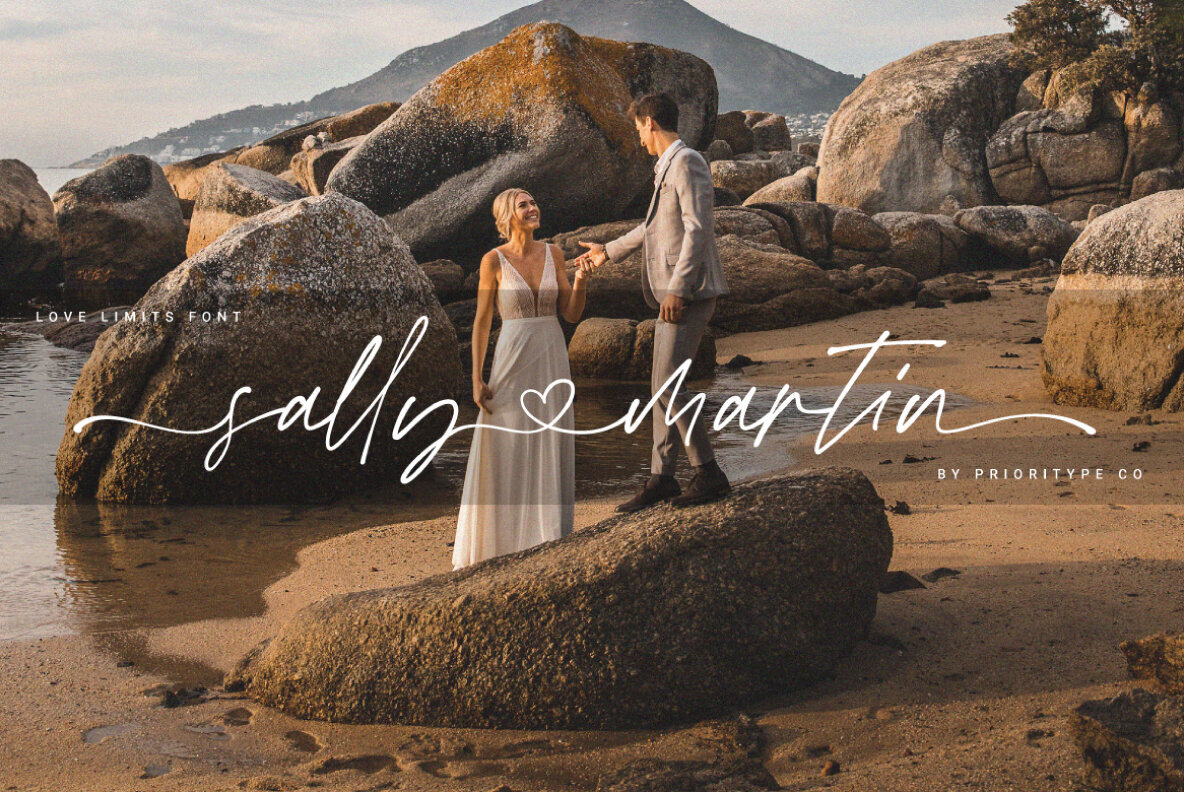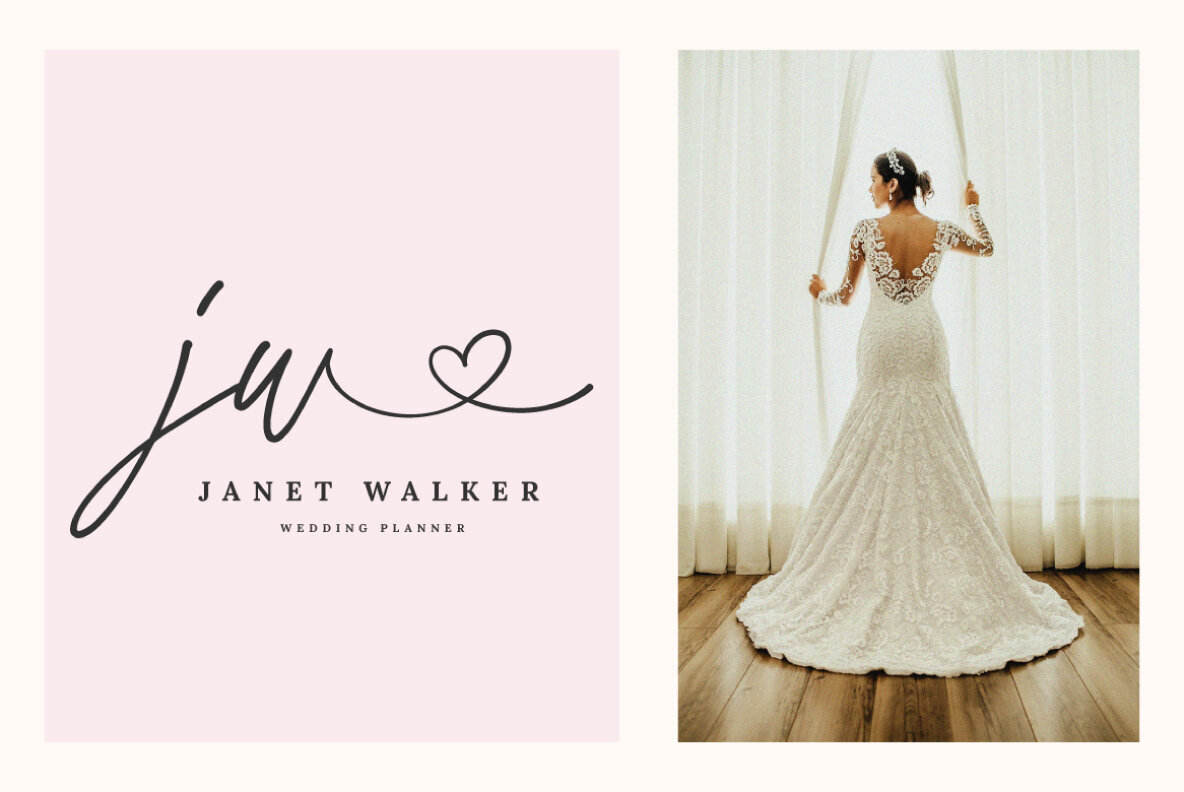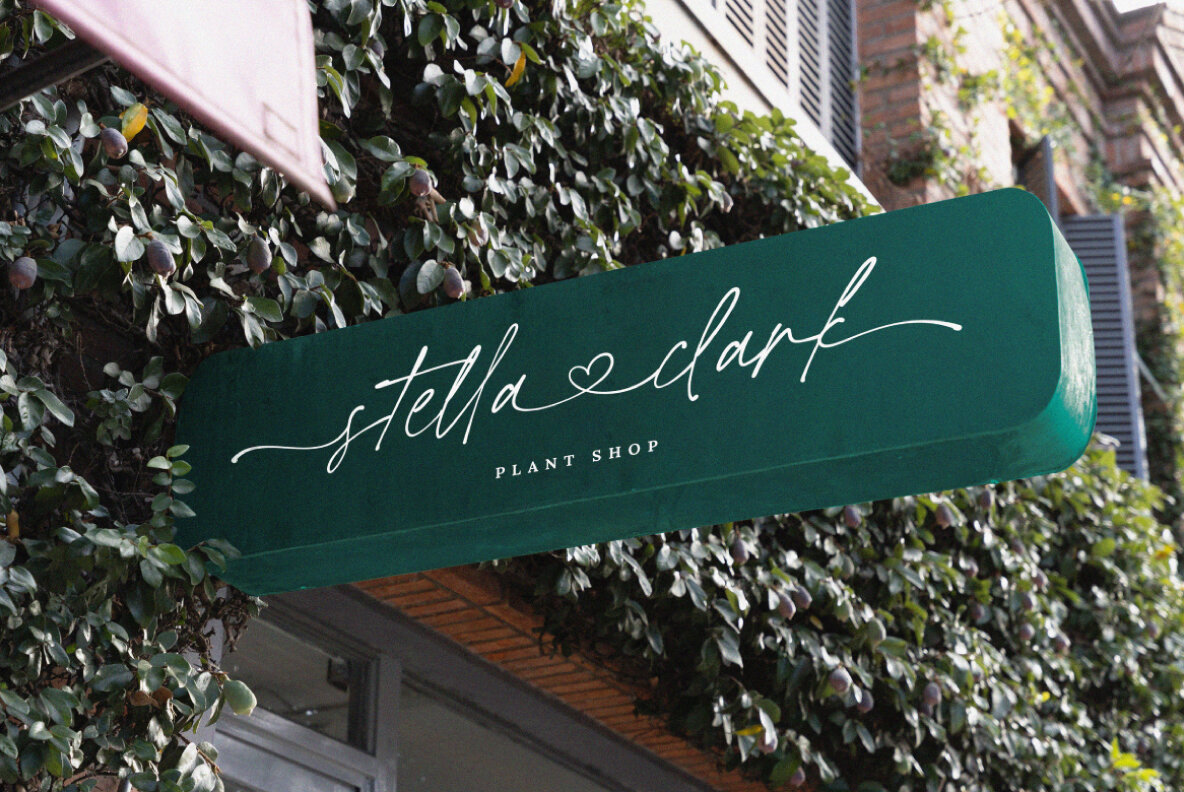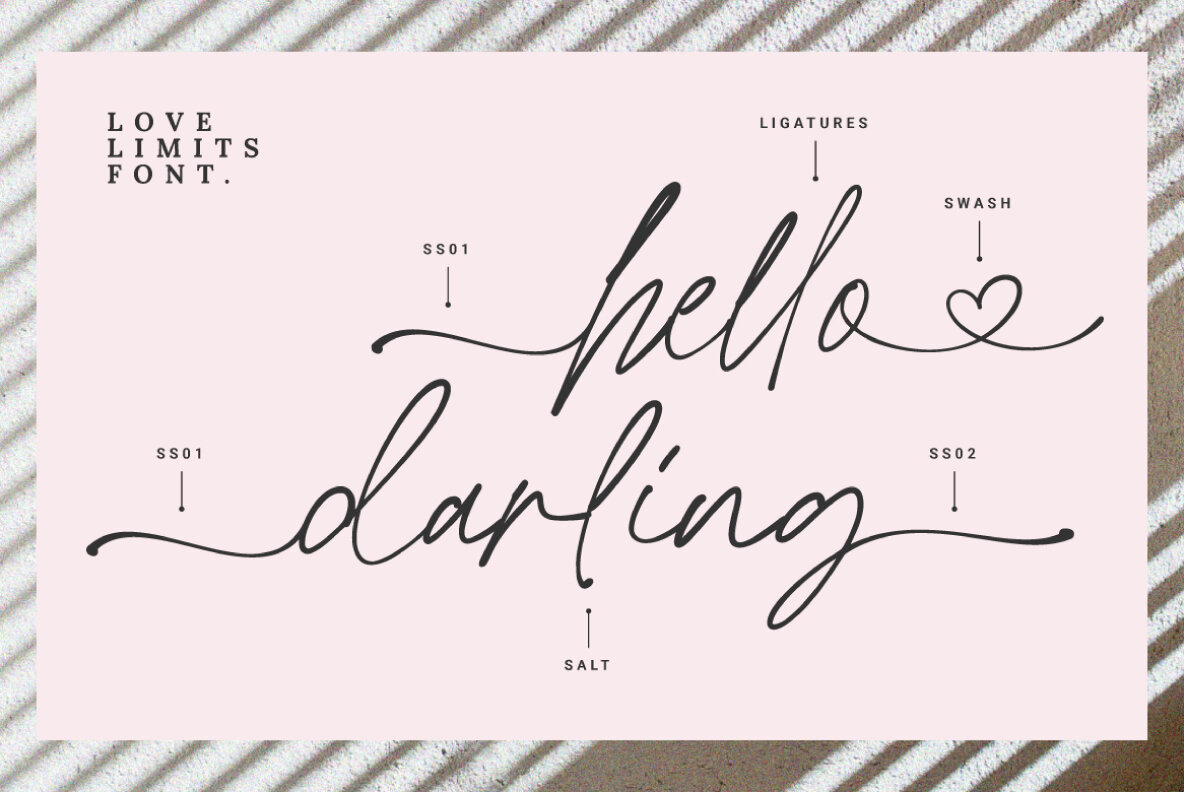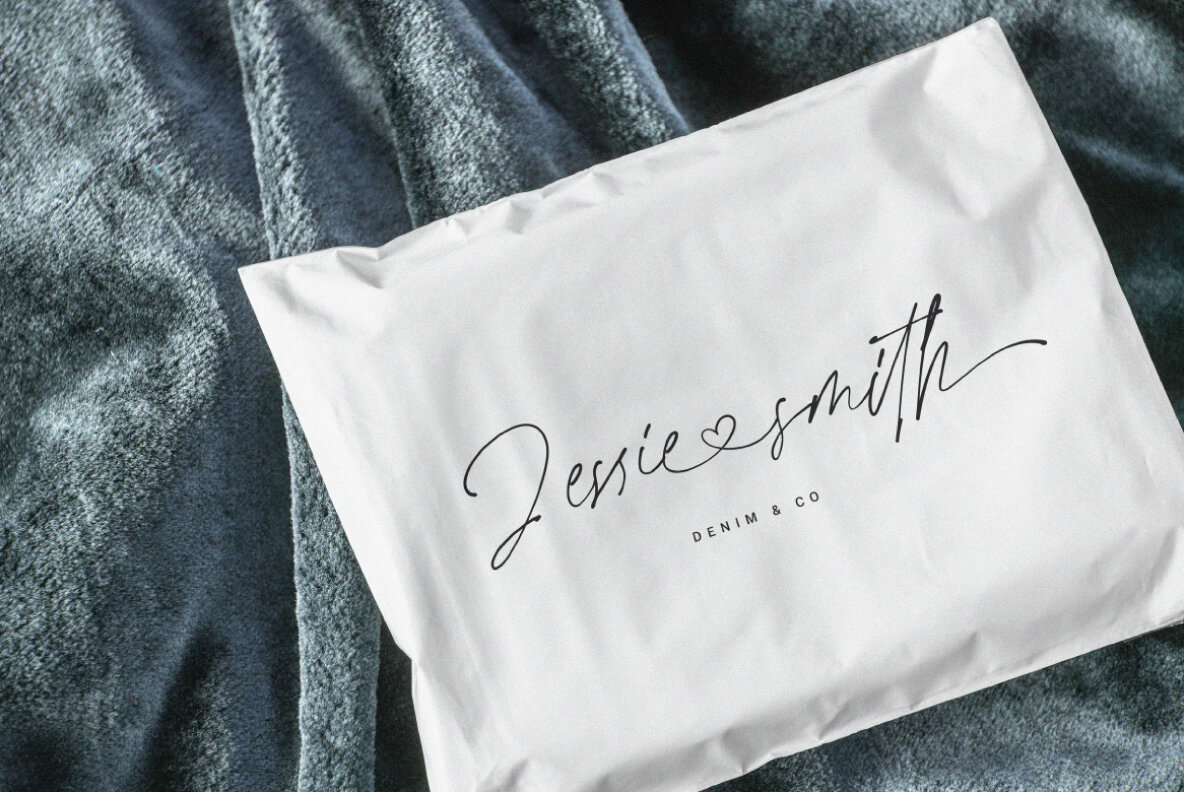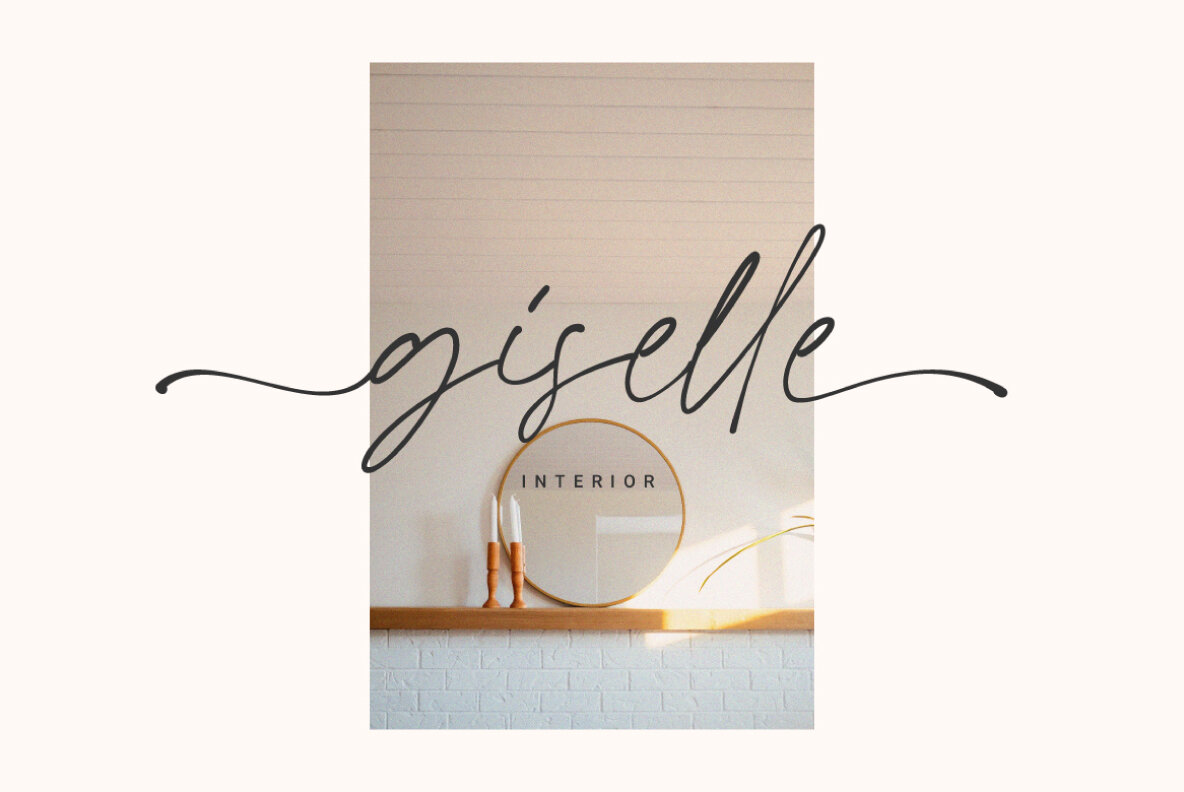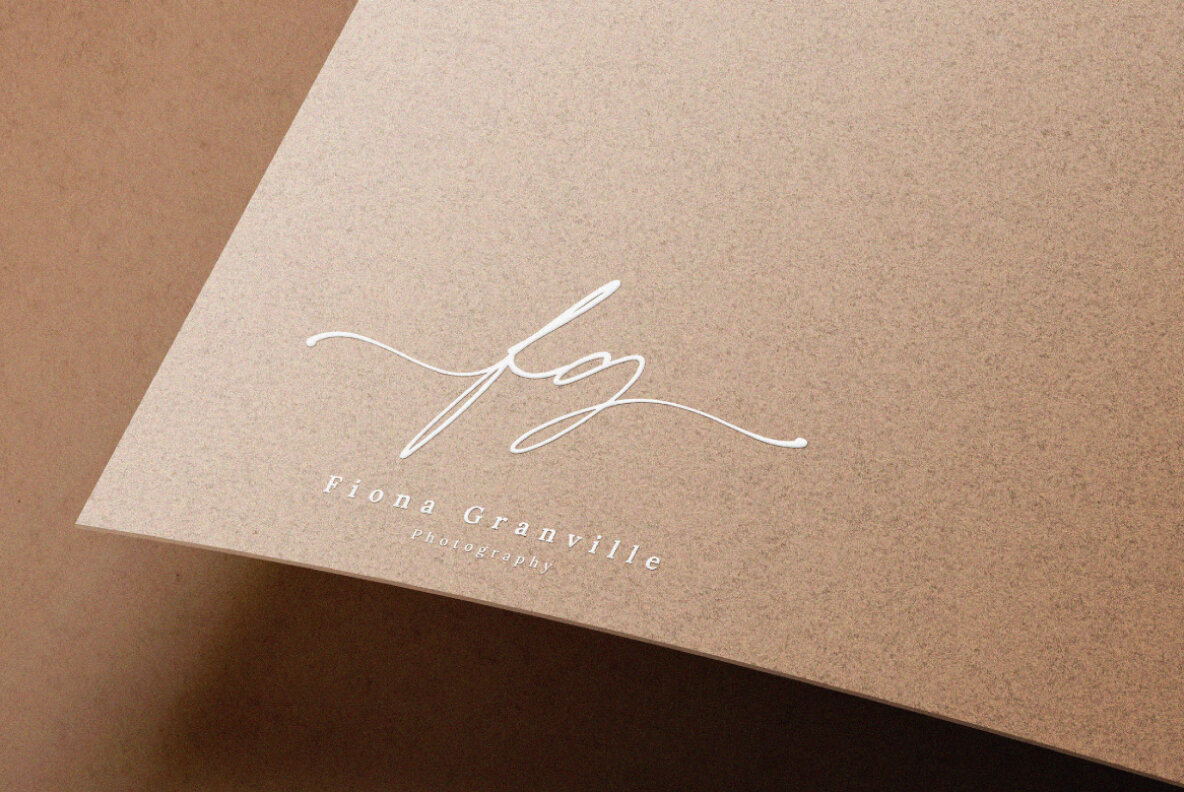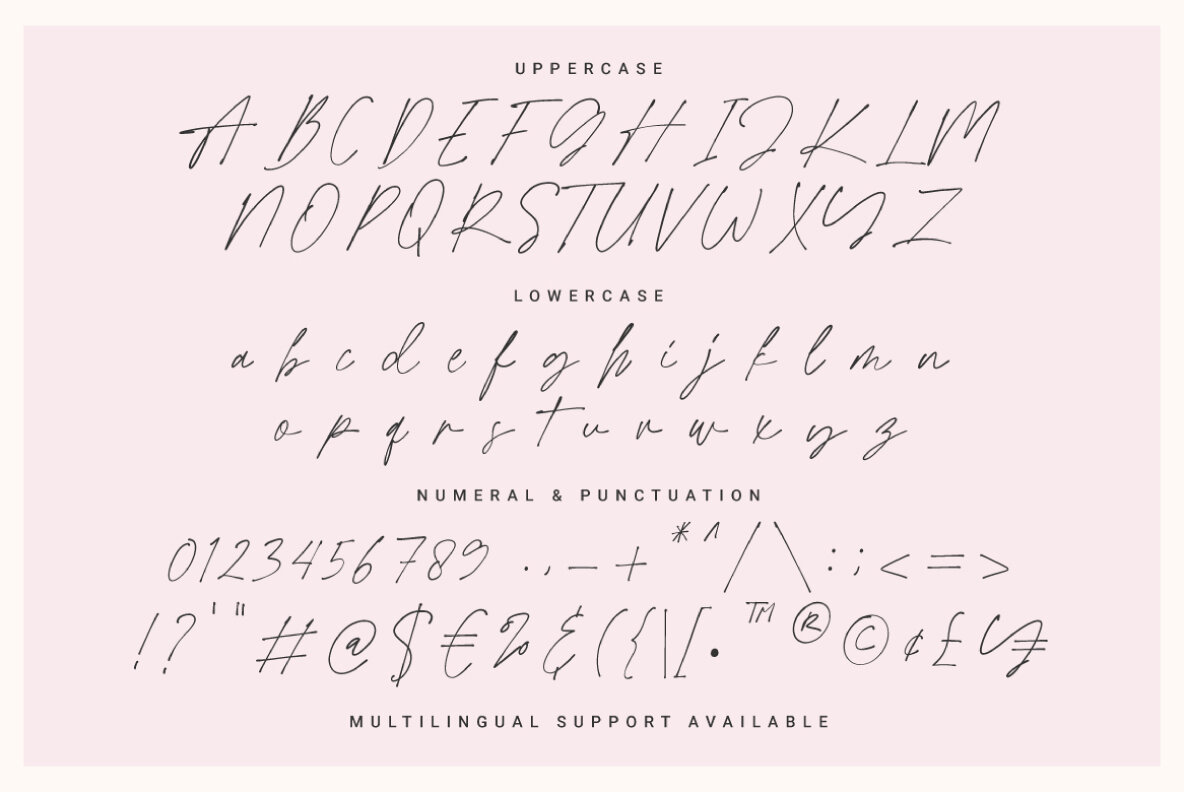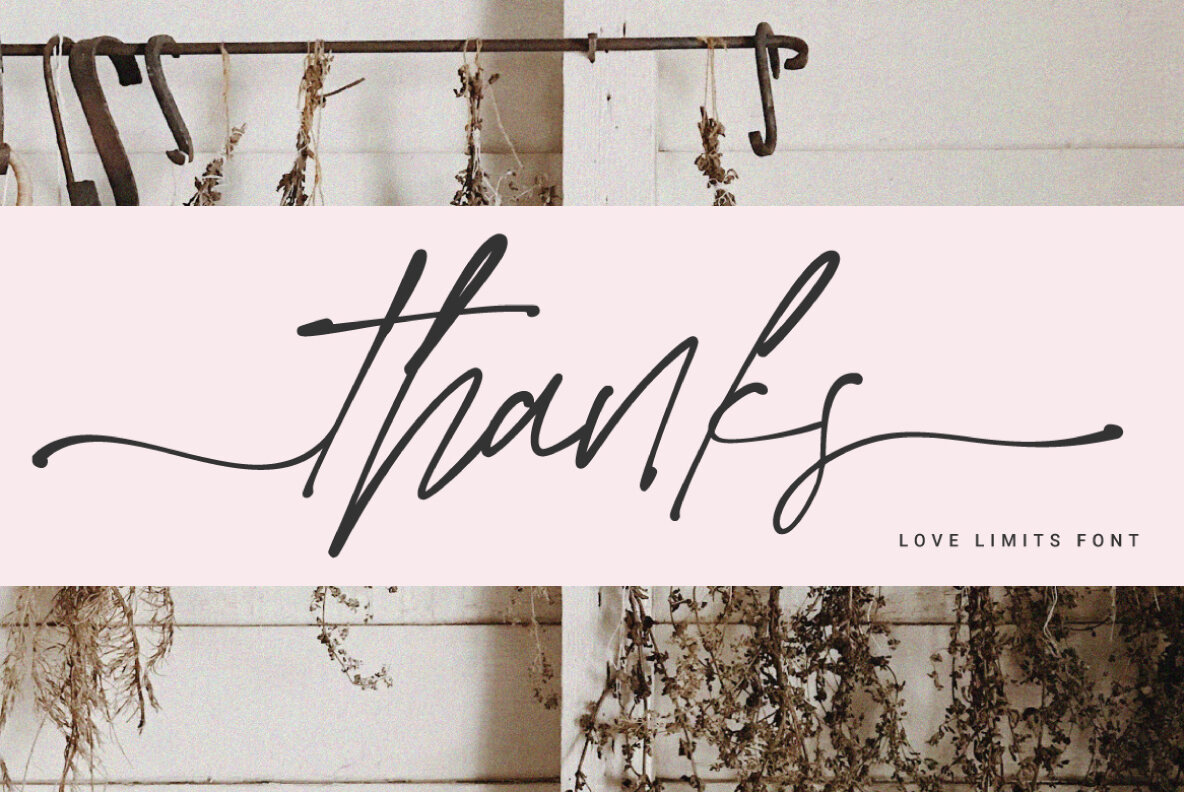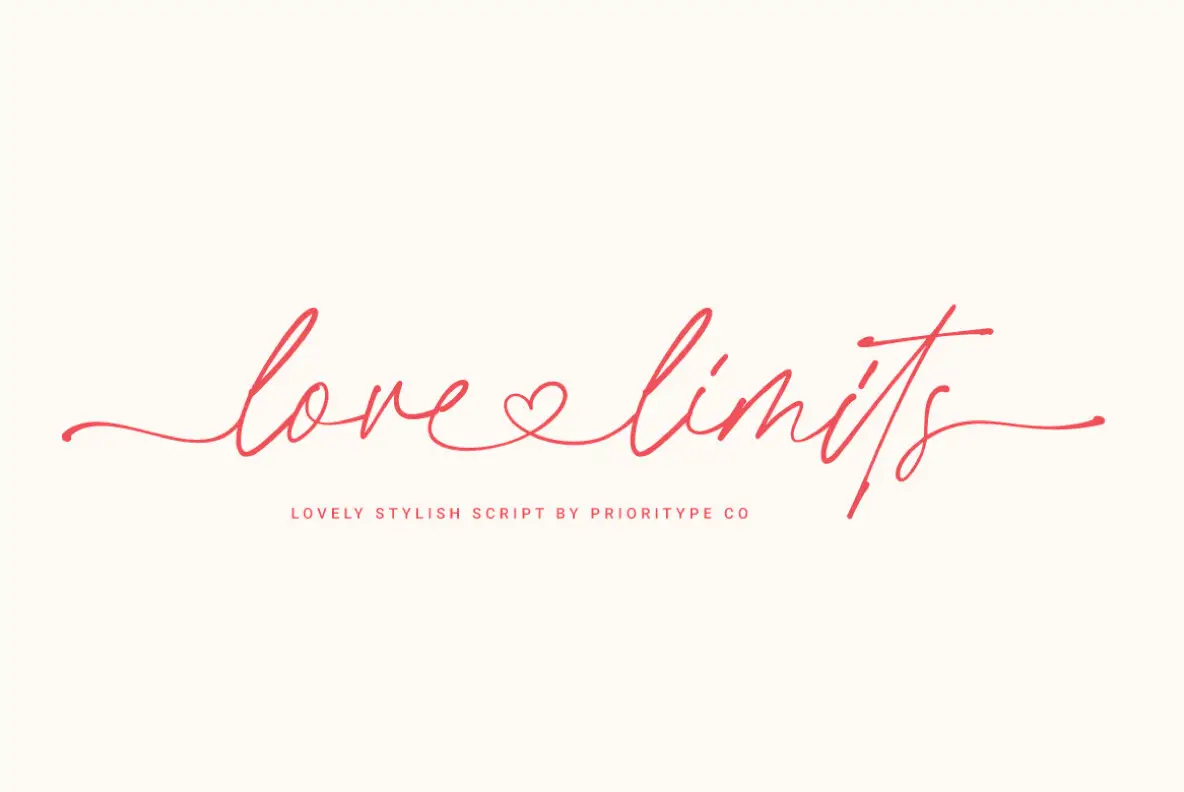
Love Limits
Love Limits by Prioritype Co offers a stylish script font designed to enrich your creative projects. Featuring unique alternative characters and ligatures, it provides a naturally flowing aesthetic, perfect for applications such as branding, logotypes, wedding invitations, and more.
The font includes a comprehensive suite of features: uppercase and lowercase letters, numerals, punctuation, and a set of multilingual characters. Additionally, Love Limits supports various ligatures and alternates to enhance your design's uniqueness.
The multilingual capability is extensive, covering languages such as Afrikaans, Albanian, Danish, Dutch, English, French, German, Spanish, Swedish, and many more, ensuring broad compatibility across different regions and audiences. Transform your designs with the versatile and natural flair of Love Limits.